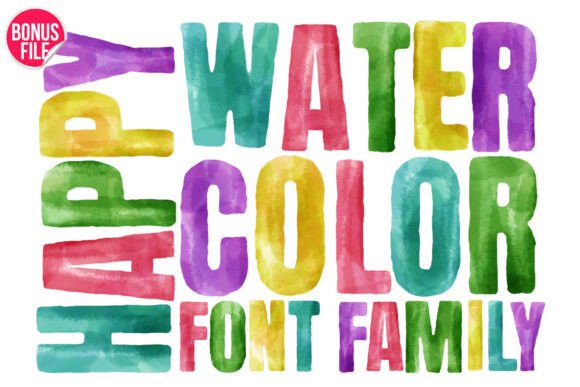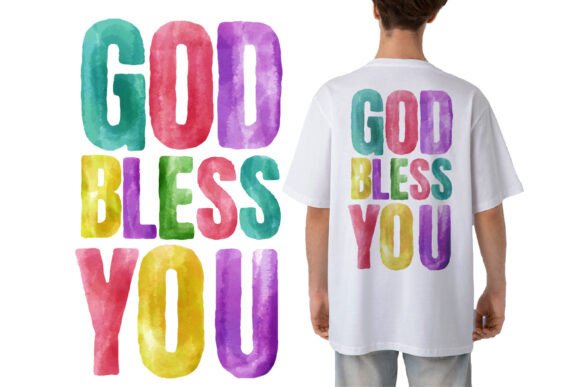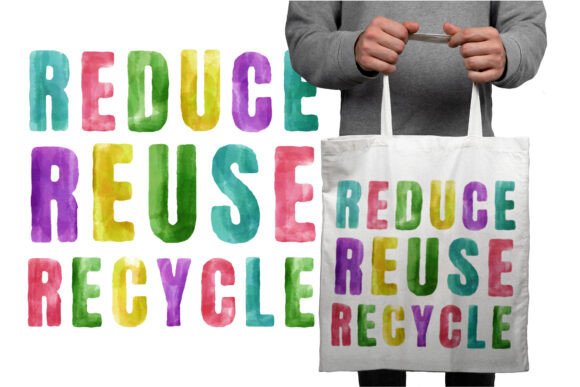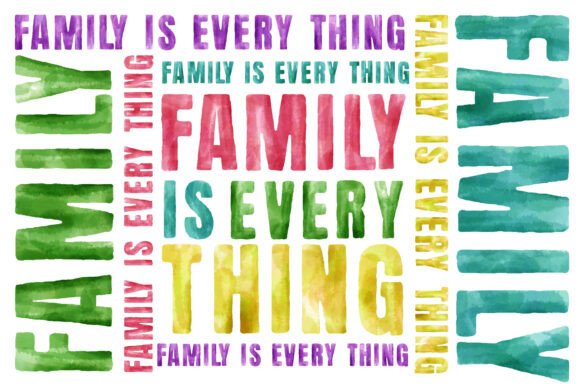
Happy Watercolor Font
About the Happy Watercolor Font
Let us introduce you to Happy Watercolor Font, where timeless design meets modern craftsmanship. Happy Watercolor is a charming, hand-painted font with a whimsical touch. Perfect for invitations, branding, quotes, and creative projects, it adds warmth and personality to any design. Let your creativity flow with this delightful, artistic typeface! 🎨✨